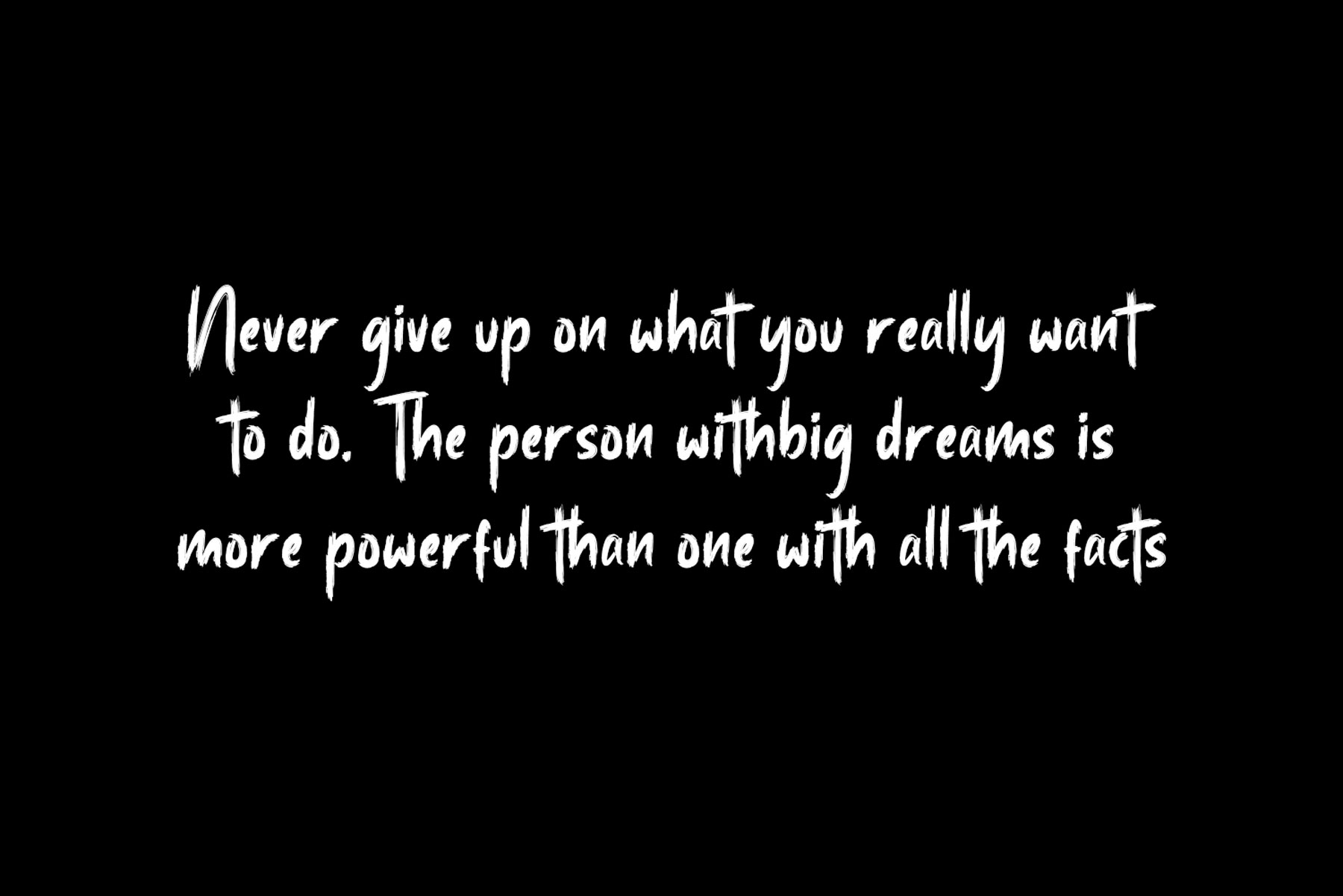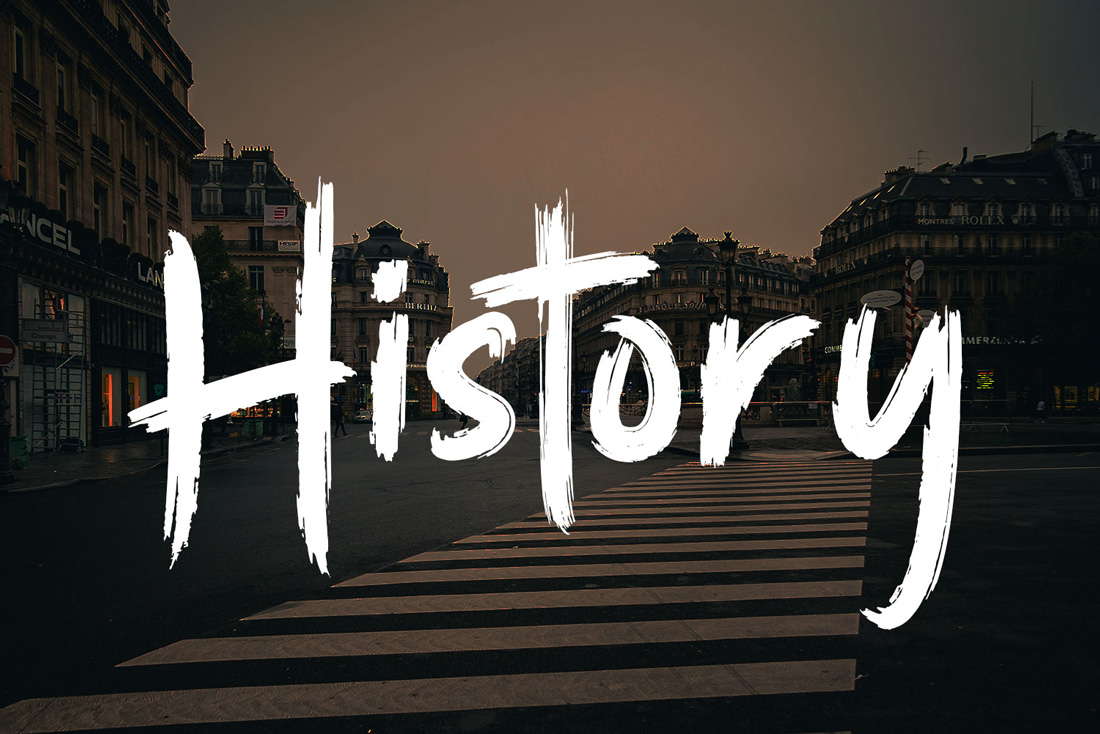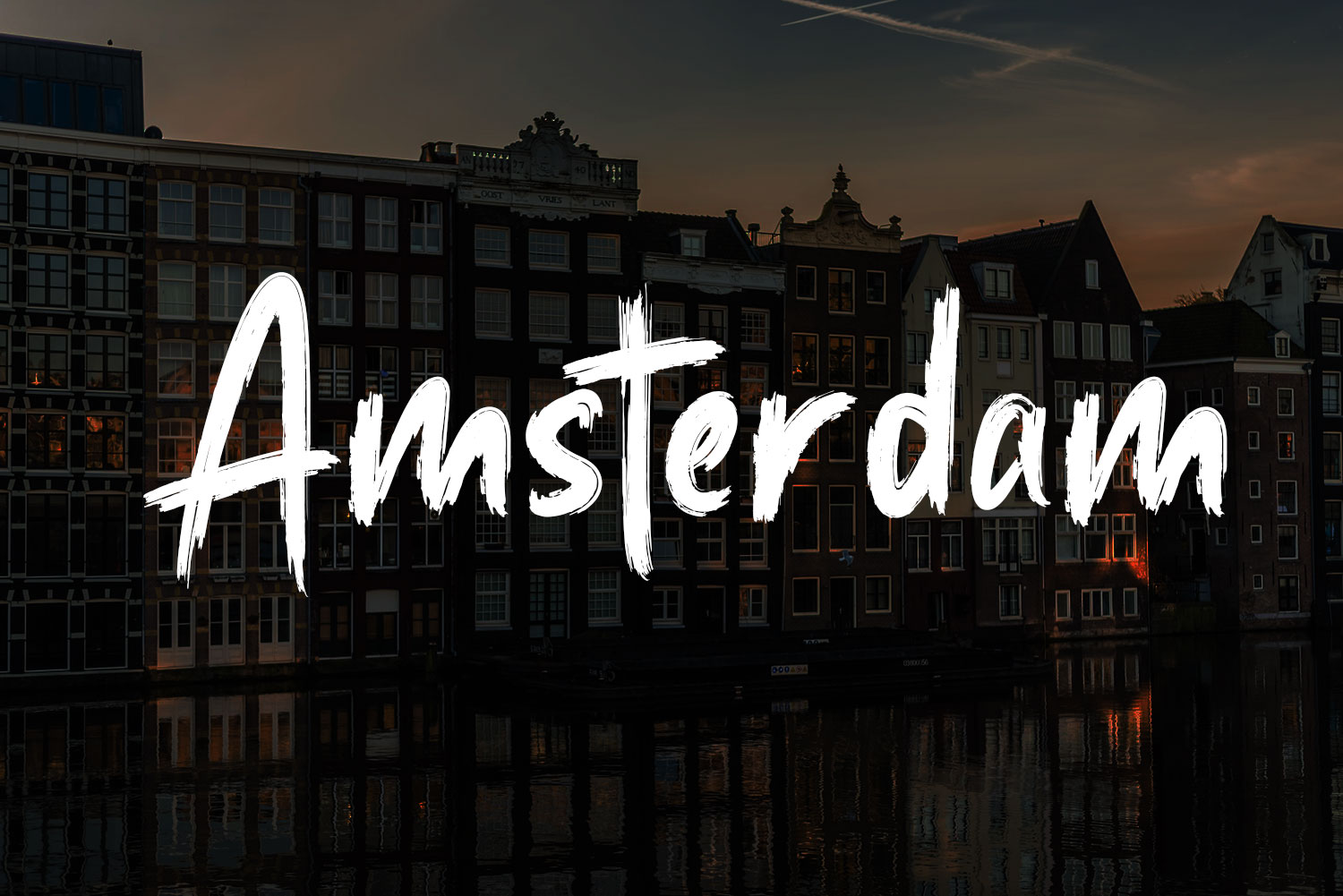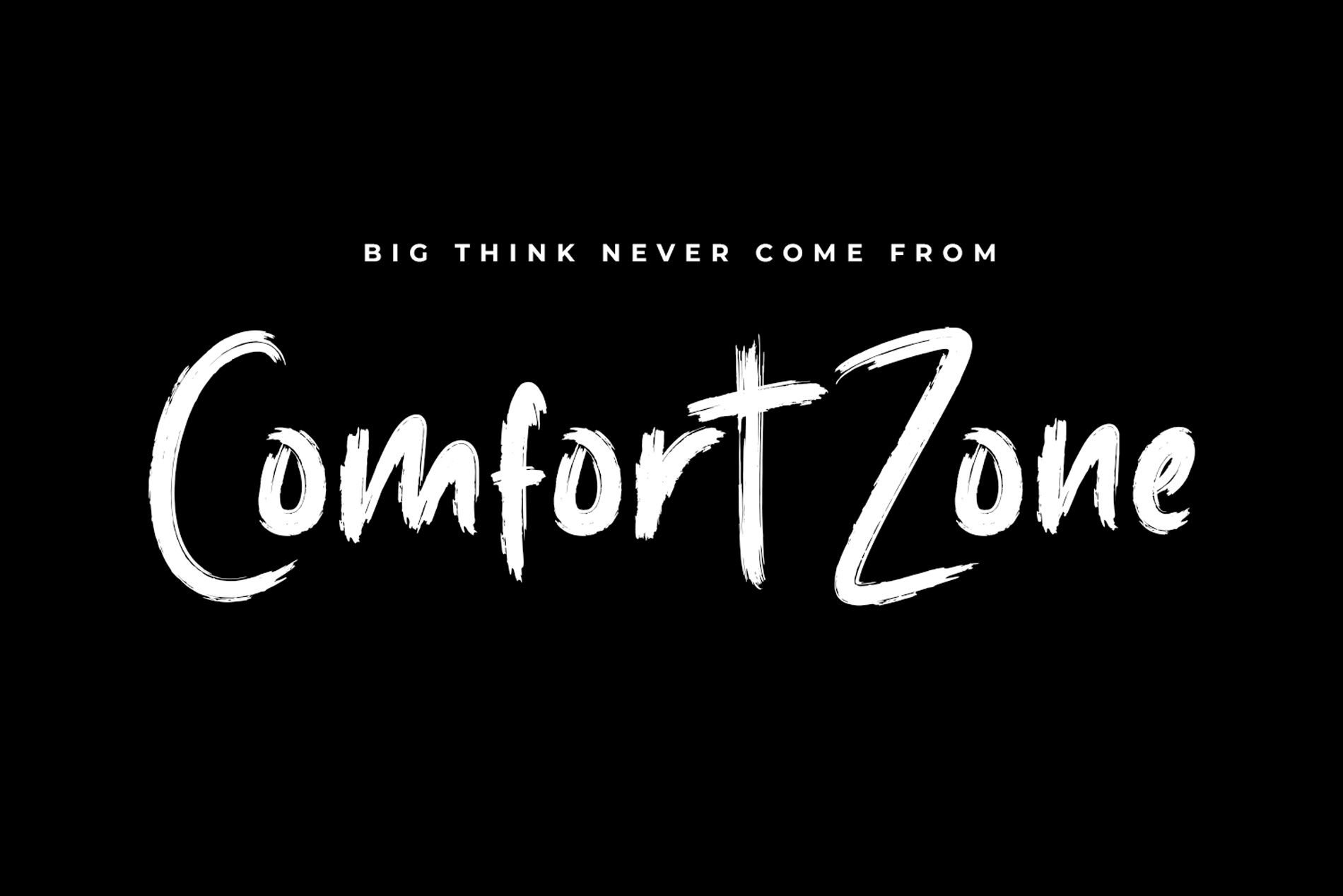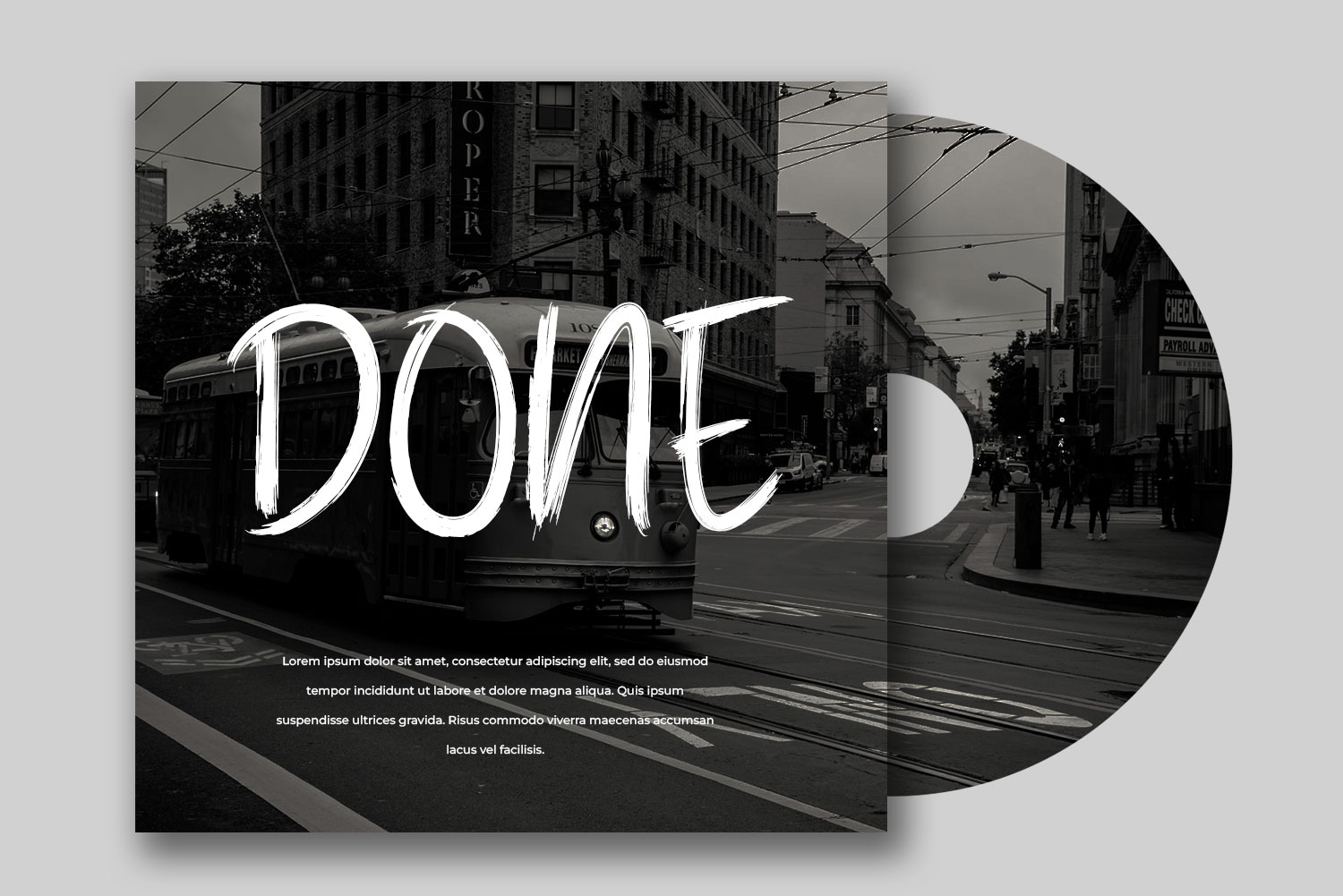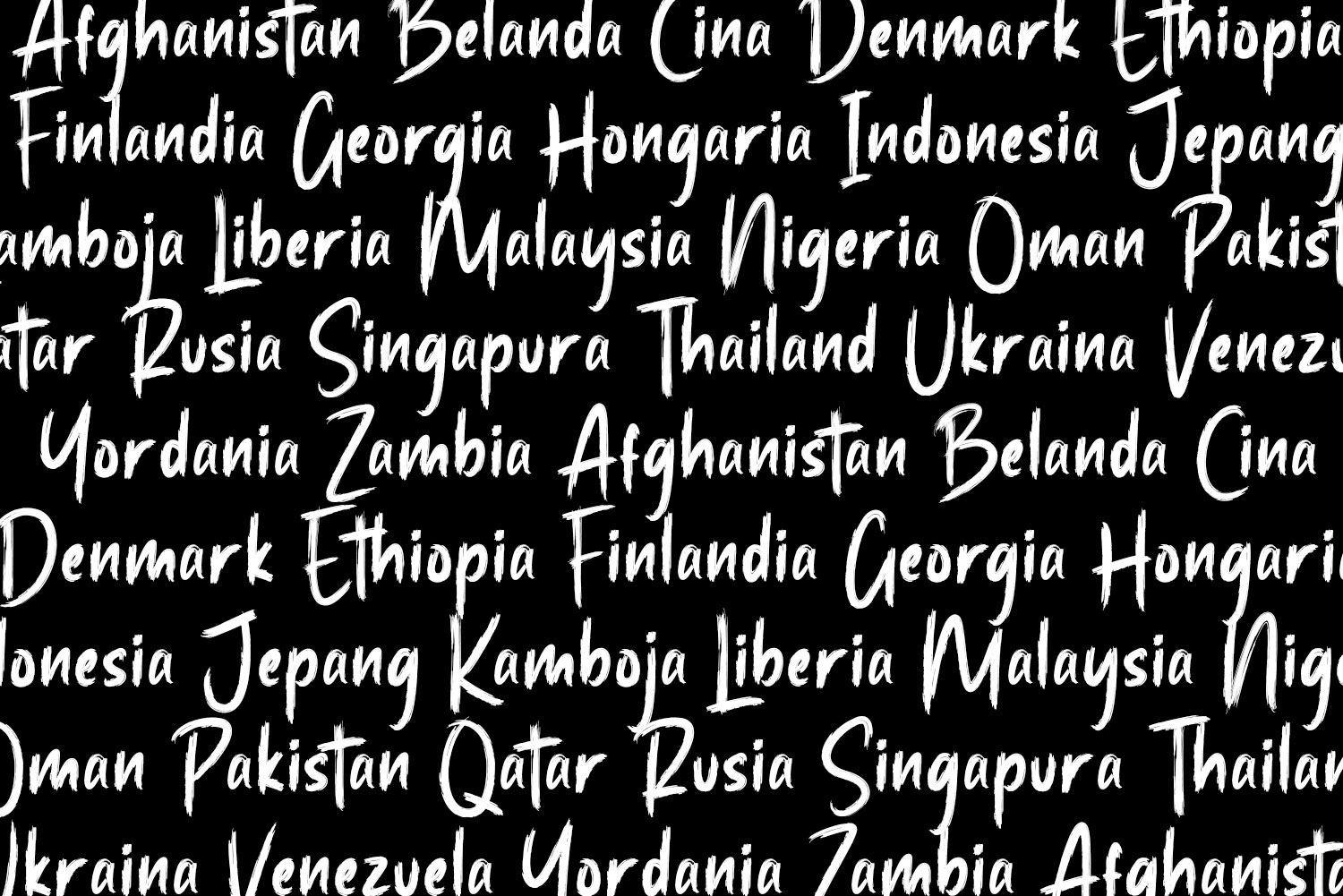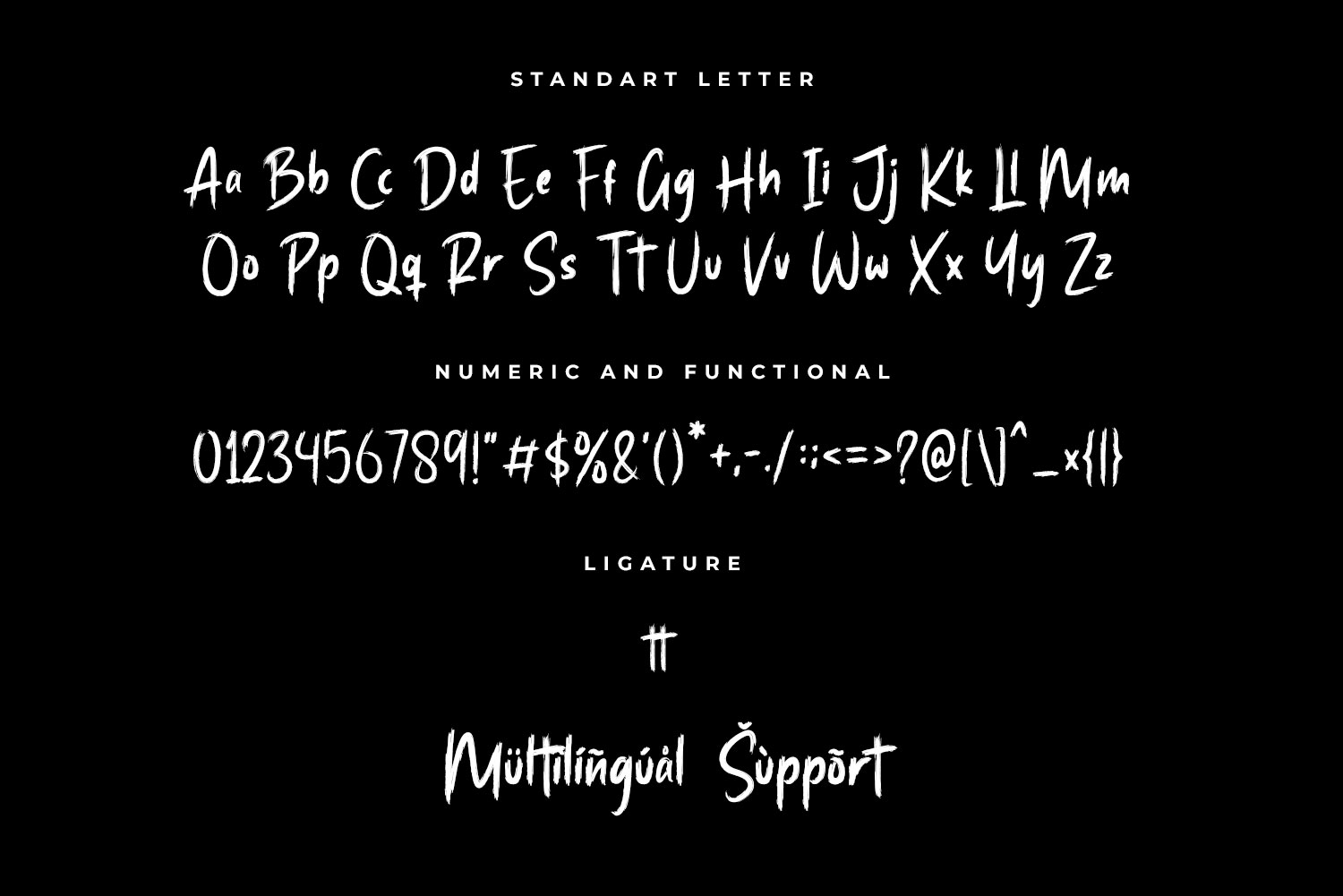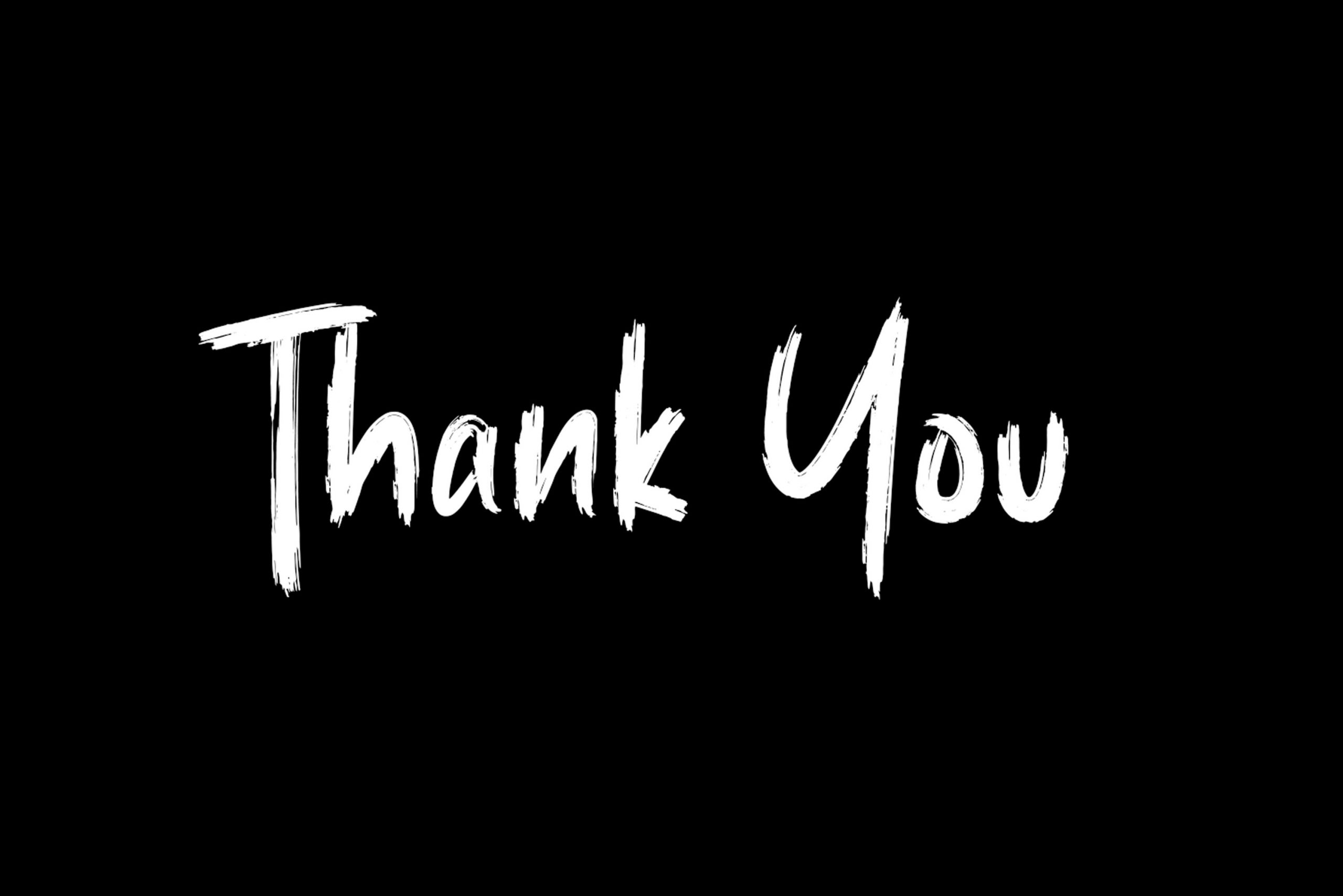
Rethem is natural brush font. This font suitableĀ for logos, packaging designs, posters, business card, cover, broadcast, quotes, books, etc. Let’s we go, to make you business go to next level with Rethem.
Fonts includeĀ Multilingual SupportĀ for:Ā Afrikaans, Albanian, Asu, Basque, Bemba, Bena, Breton, Chiga, Cornish, Dutch, English, Estonian, Filipino, Finnish, Friulian, Galician, Gusii, Indonesian, Irish, Italian, Kabuverdianu, Kalenjin, Kinyarwanda, Luo, Luxembourgish, Luyia, Machame, Makhuwa-Meetto, Makonde, Malagasy, Manx, Morisyen, North, Ndebele, Nyankole, Oromo, Portuguese, Quechua, Romansh, Rombo, Rundi, Rwa, Samburu, Sango, Sangu, Scottish, Gaelic, Sena, Shambala, Shona, Soga, Somali, Spanish, Swahili, Swedish, Swiss, German.